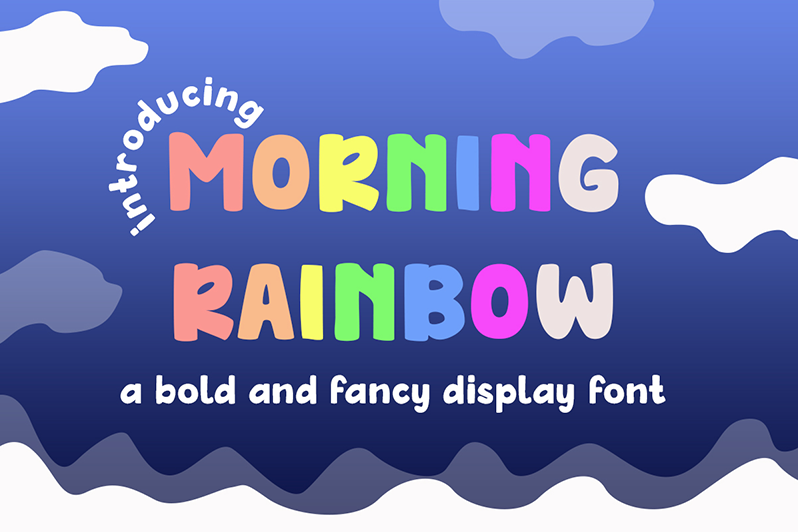
Preview and download Morning Rainbow Font. Created by Jony Suharsono in Fancy Cartoon styles with Free for personal use license.
Font name: | Morning Rainbow |
Author: | Jony Suharsono |
Morning Rainbow is a fun, bold, and cool-looking display font. Add this playful typeface to children-themed designs, product promotion, signage, labels, and more! This fonts license is Free For Personal Use Only. if You Want to Use for Commercial Project, Please Purchase it on the following link https://www.creativefabrica.com/product/morning-rainbow/ref/1131630/ Regards, Solutype |